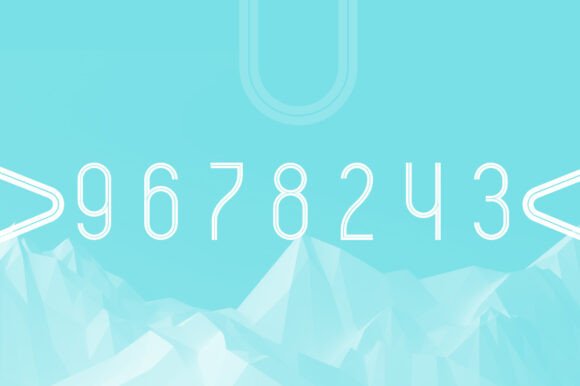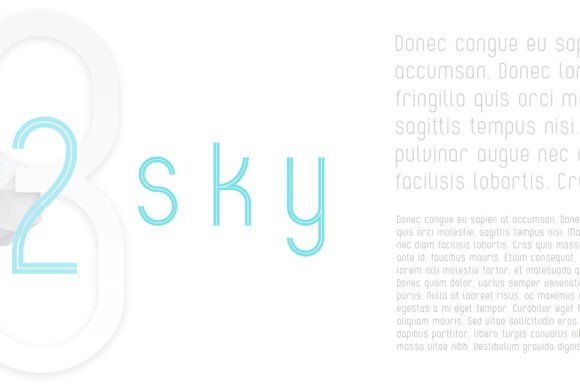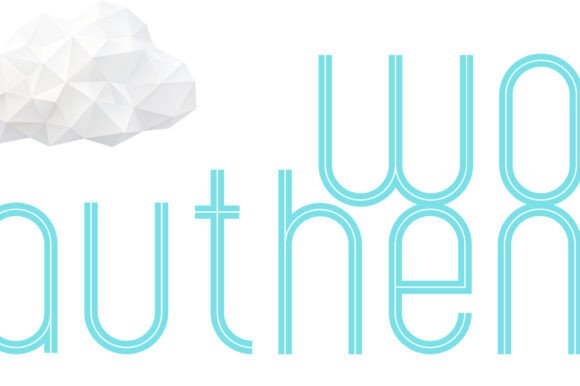
Introduction to Molansky Font Font
Fonts play a crucial role in design, and the Molansky Font font is a typeface that brings both character and versatility to any project. Whether you’re working on a branding project, a website, or a print design, the Molansky Font font offers a unique style that can elevate your work.
Molansky is a clean, modern, and minimalist font that is inspired by curved shapes.
Itβs very versatile in use, especially in logo design or brand identity projects It comes with two styles: regular and inline.
Key Features of Molansky Font Font
Why Choose Molansky Font Font?
The Molansky Font font is more than just a typeface β it’s a design tool that helps you communicate your message with style and clarity. Its unique character set and versatile design make it suitable for a wide range of applications, from elegant invitations to bold headlines.
With its carefully crafted letterforms and balanced proportions, the Molansky Font font ensures readability and visual appeal across all mediums.
What makes Molansky Font font special?
The Molansky Font font stands out with its unique design, exceptional readability, and versatility across various design applications.